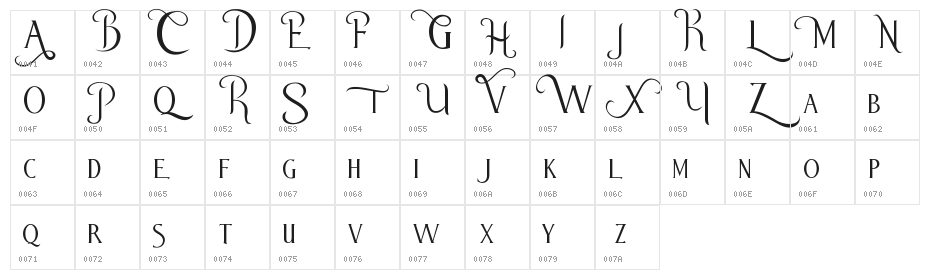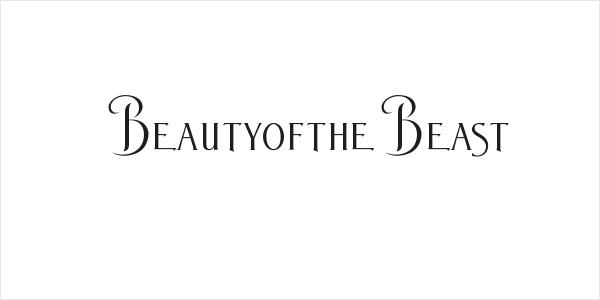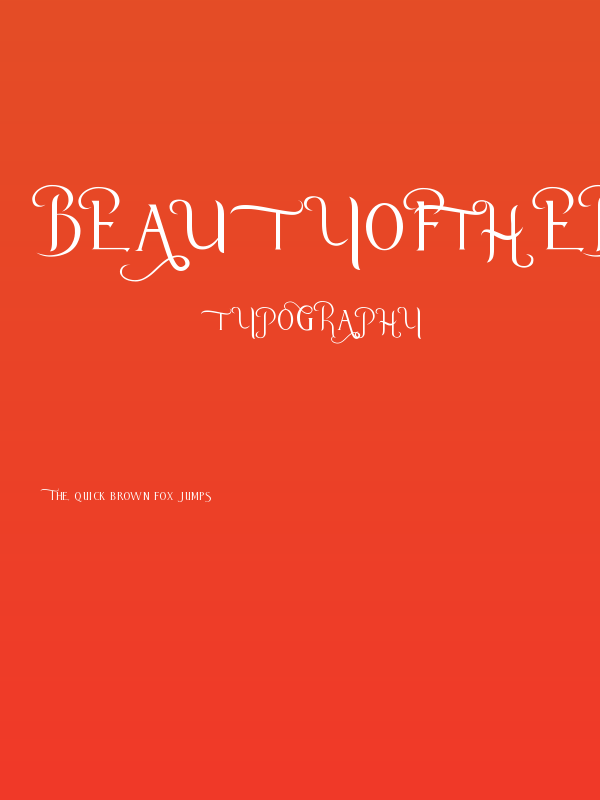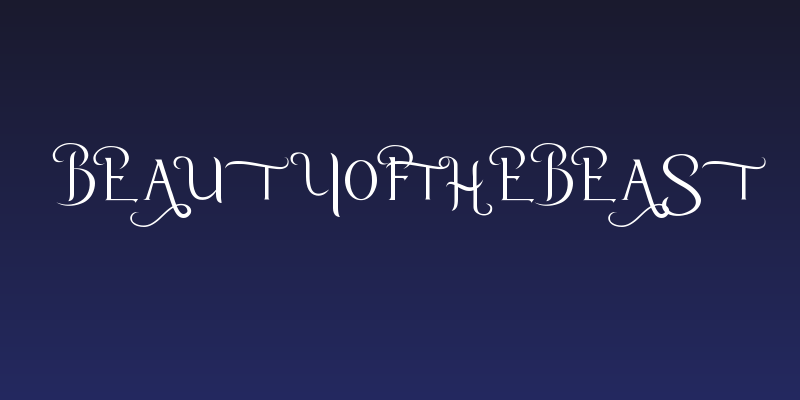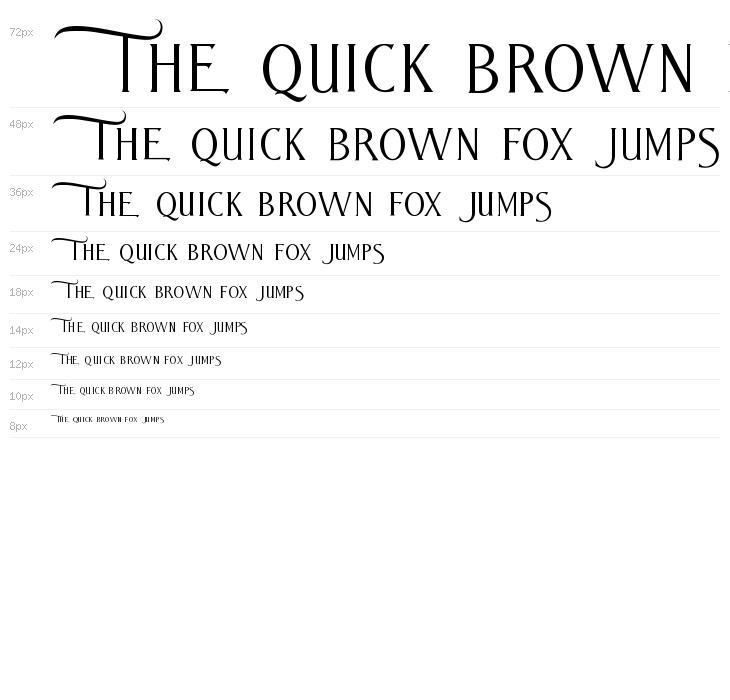
BeautyoftheBeast Font
BeautyoftheBeast Description
This font features a unique blend of elegance and whimsy, characterized by its decorative and flowing letterforms. The uppercase letters exhibit a playful yet sophisticated style with intricate curves and flourishes, particularly noticeable in letters like 'A', 'C', and 'L'. The lowercase letters maintain a consistent style, offering a harmonious balance between readability and artistic flair. The font's overall design is reminiscent of classic calligraphy with a modern twist, making it suitable for creative and expressive projects. Its distinct personality is further enhanced by the varied stroke thickness, adding depth and visual interest.
Use CaseLogos, Headlines, Artistic projects
Proposed ProjectsIdeal for wedding invitations, greeting cards, branding for luxury products, and artistic posters.